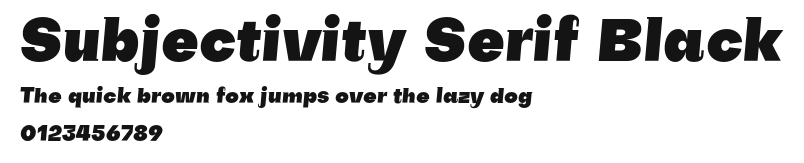
• Font Name: Subjectivity Serif Black
• Designer: Alexander Slobzheninov
About Subjectivity Serif Black.otf
Subjectivity Serif Black.otf is a modern, elegant sans-serif font designed for ultimate readability and visual harmony. Perfect for branding, headlines, web design, and print materials.